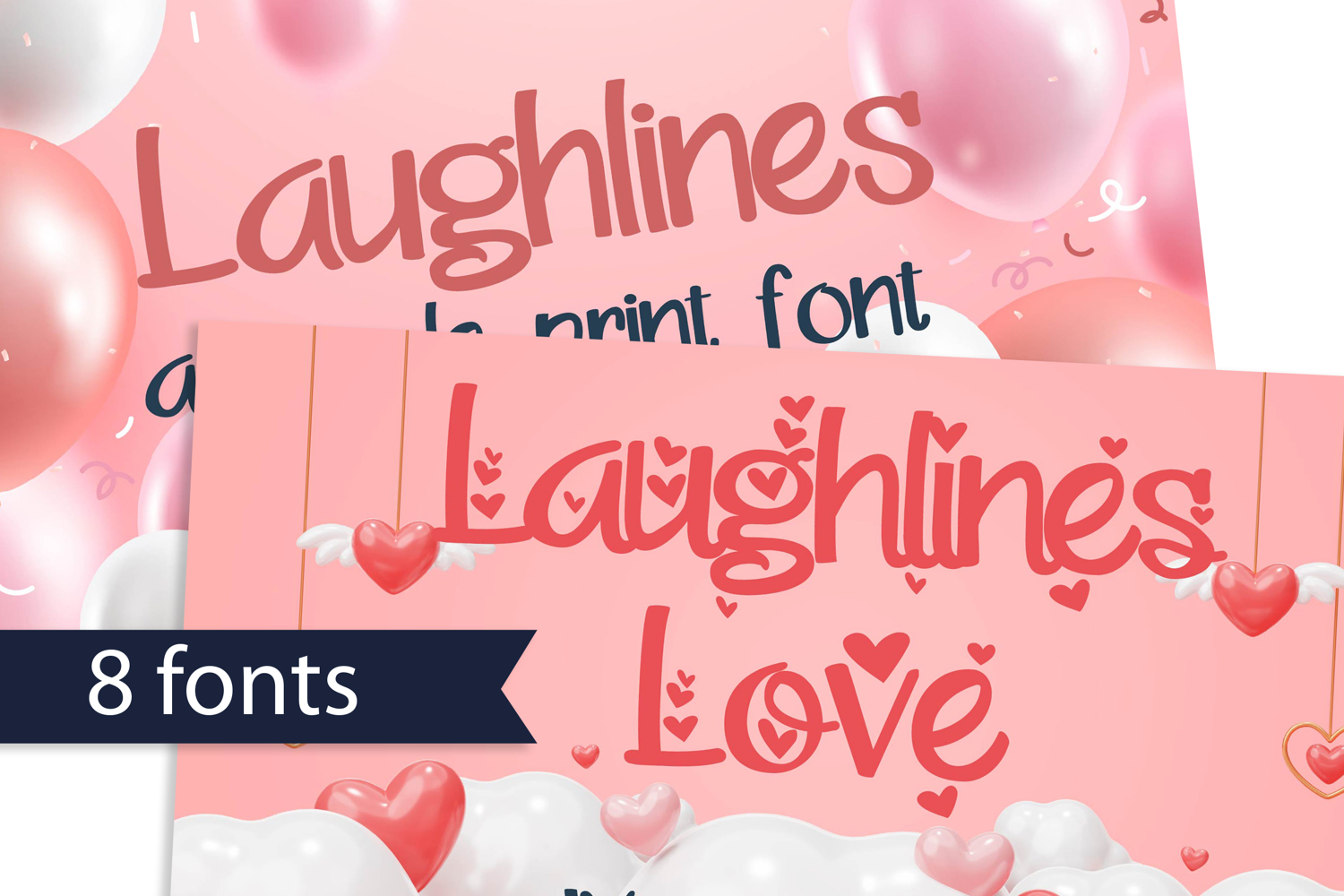
PN Laughlines Font Family
This hand-crafted font is a whimsical, hand-written, print with some family members sporting hearts throughout. There are 8 variations included.
• The letters are not perfectly uniform in size or shape.
• There may be slight variations in the spacing between letters and words.
• The font may have a "wiggly" or "squiggly" appearance.
• The font may be difficult to read at small sizes.